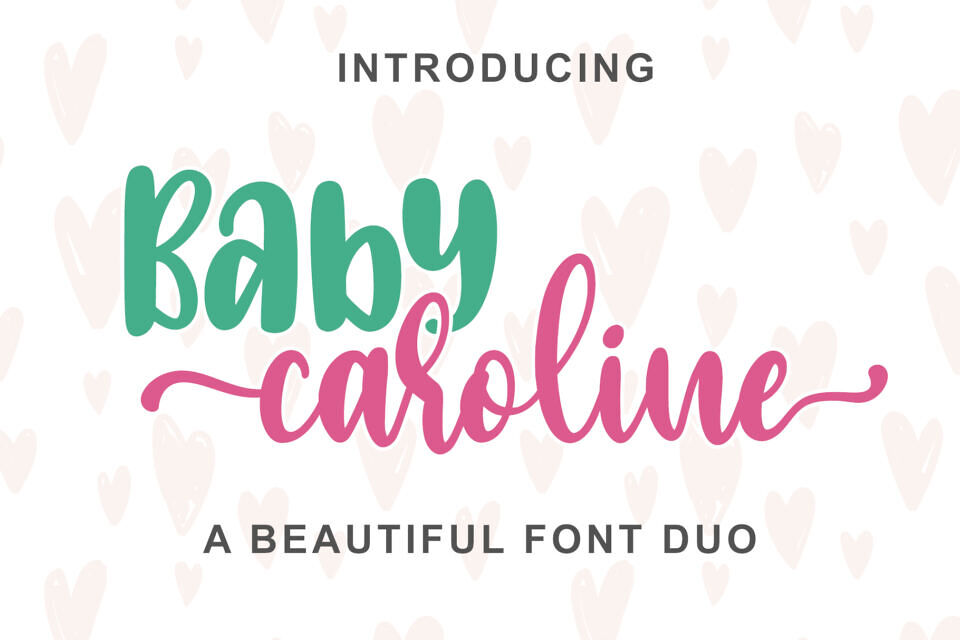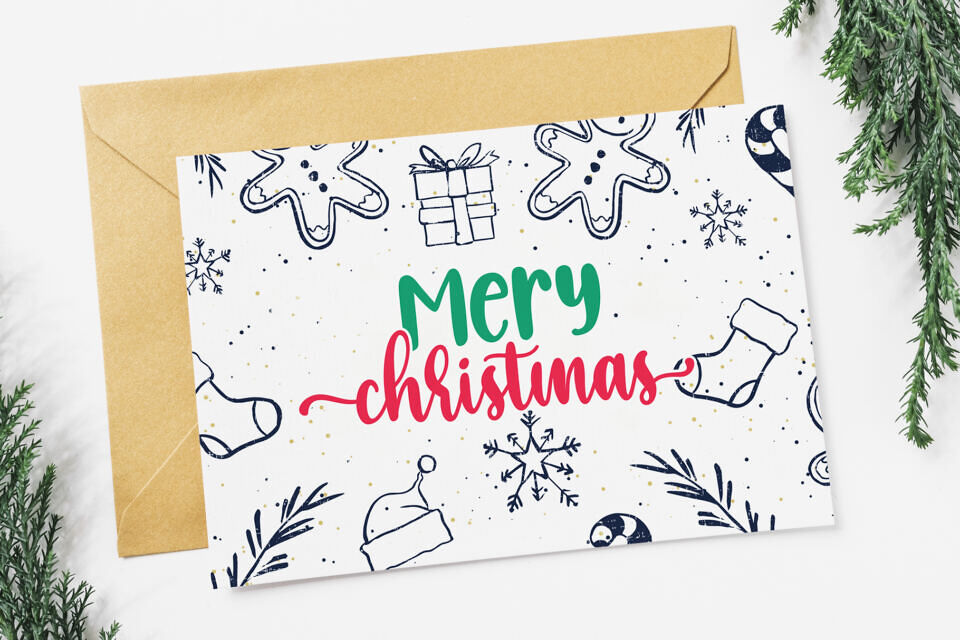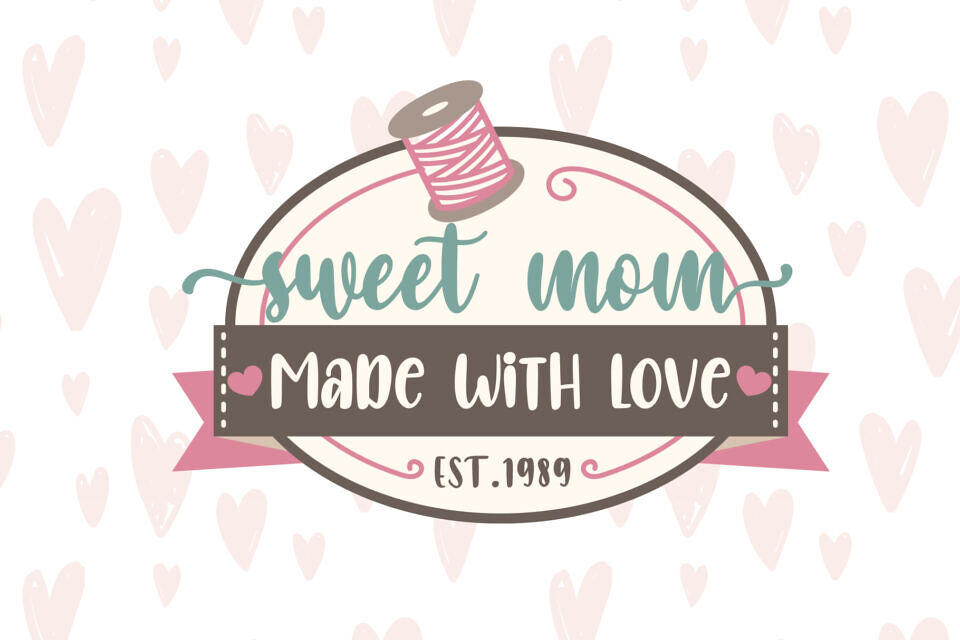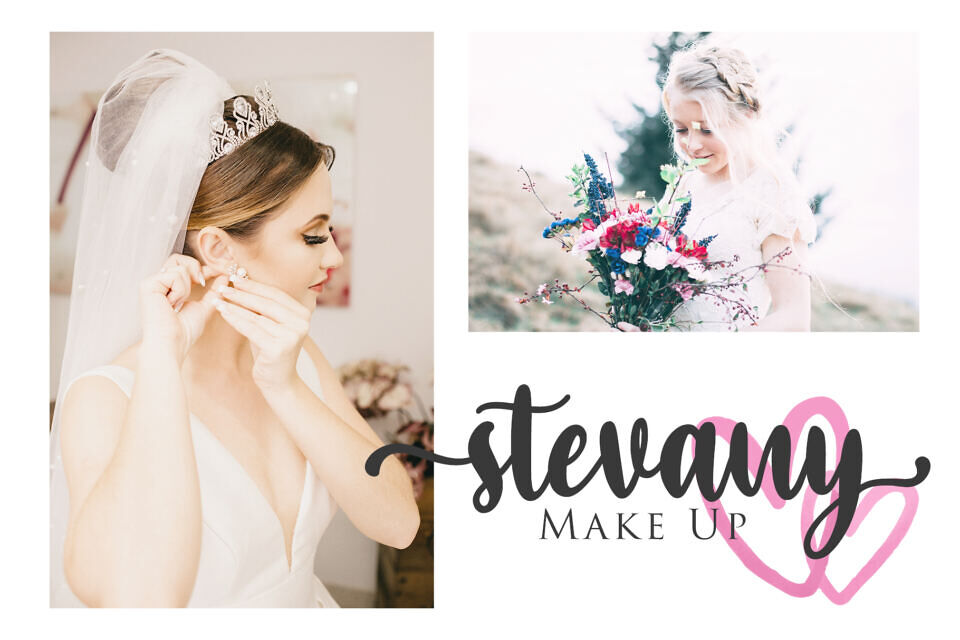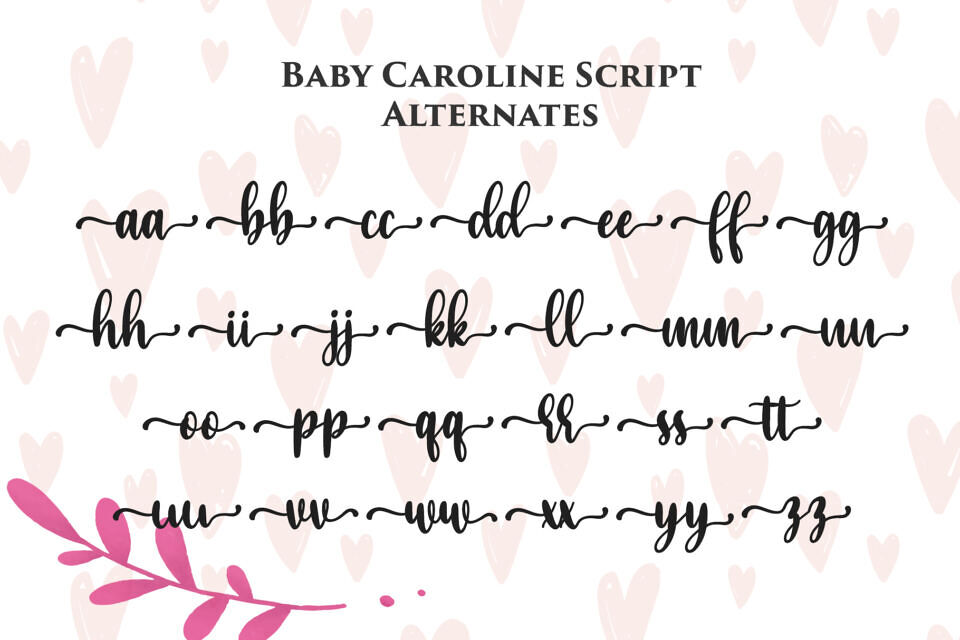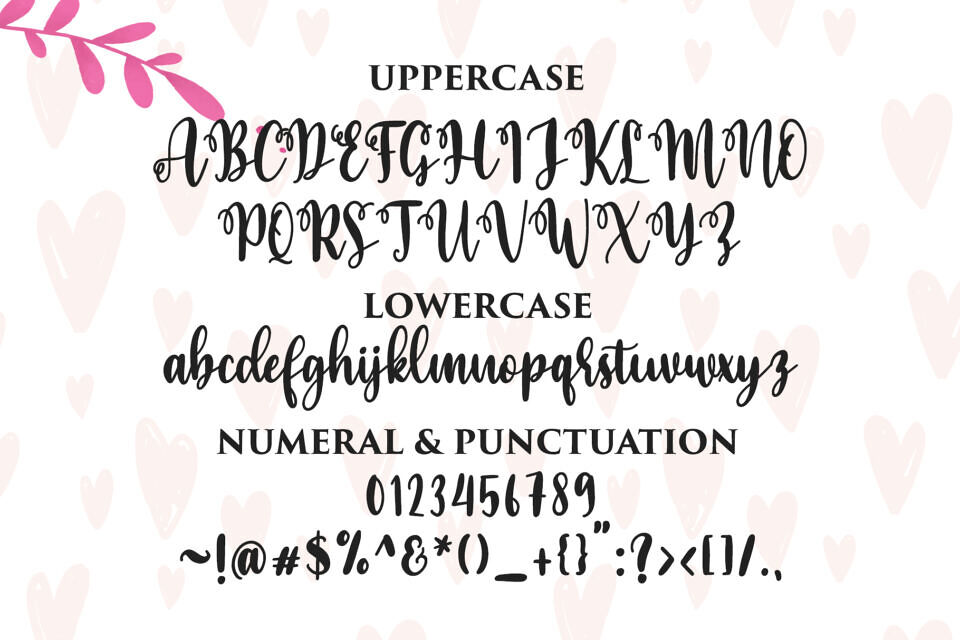
Meet Baby Caroline, a stunning font duo that combines the grace of a handwritten script with the timeless charm of a modern sans serif. Delicate, elegant, and beautifully balanced — this duo is designed to add a touch of sophistication and warmth to any creative project.
From letterheads, invitations, branding, stationery, and logos to social media quotes and product packaging, Baby Caroline fits perfectly into every design that deserves a soft yet luxurious feel.